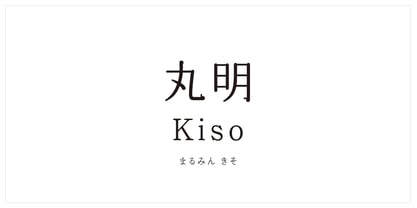
MaruminKiso StdN
by Kinuta Font Factory
The kana character design of Marumei Kiso emphasises the movement and connection of the pen strokes, striking a balance between liveliness and calm. The rhythm of the text's letterforms is created by the contemporary kanji style and classical kana characters.